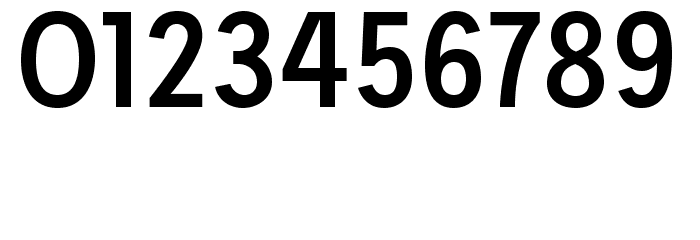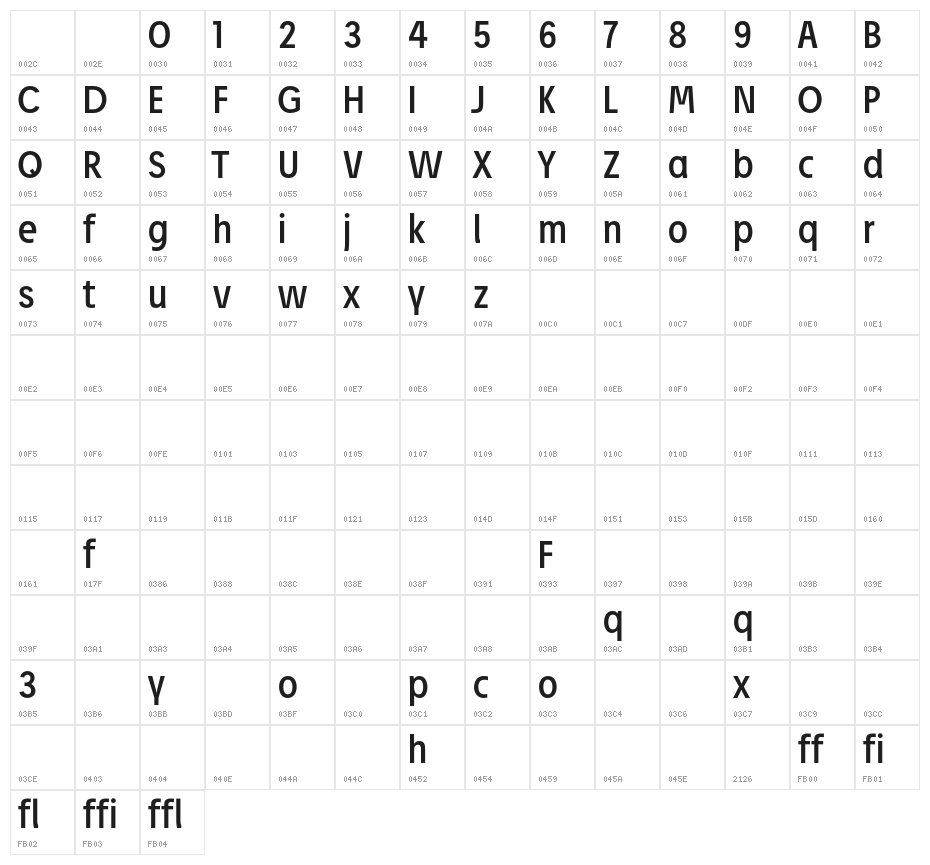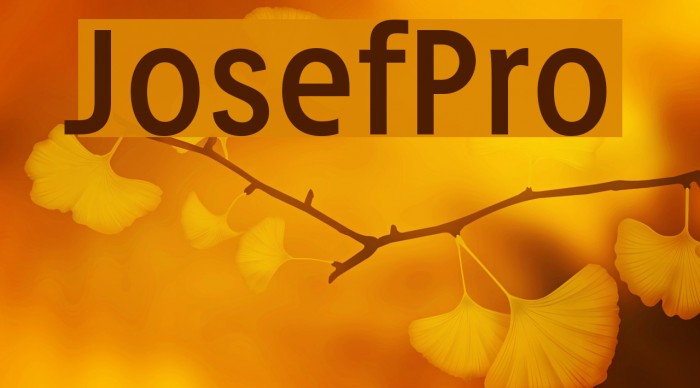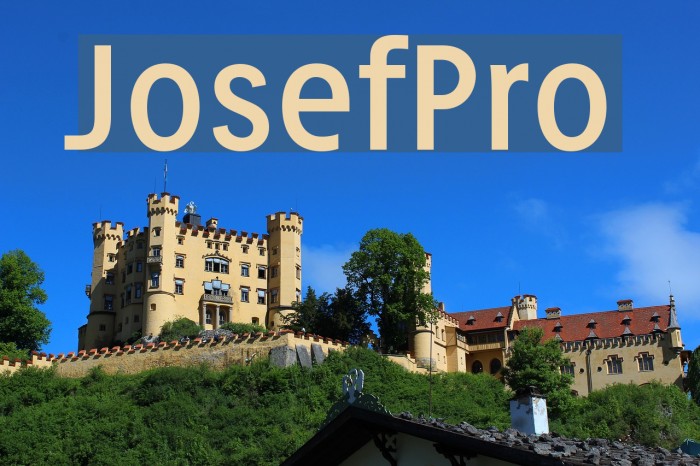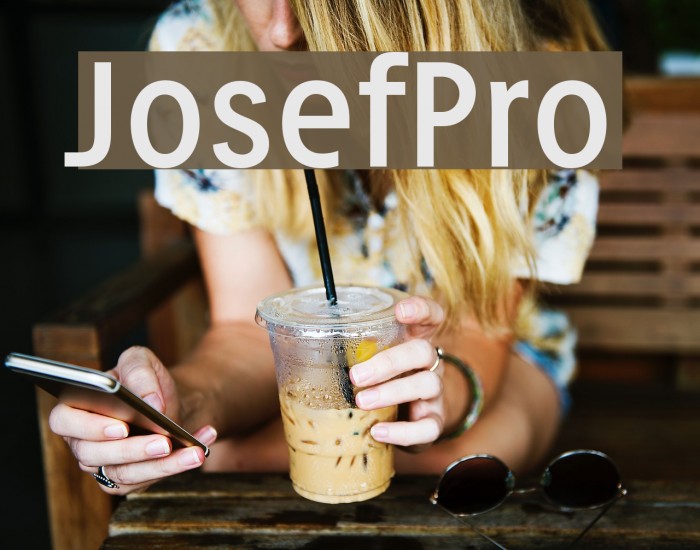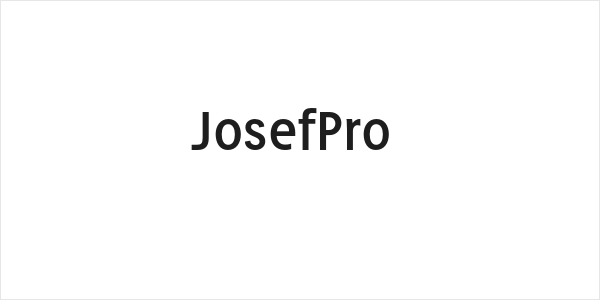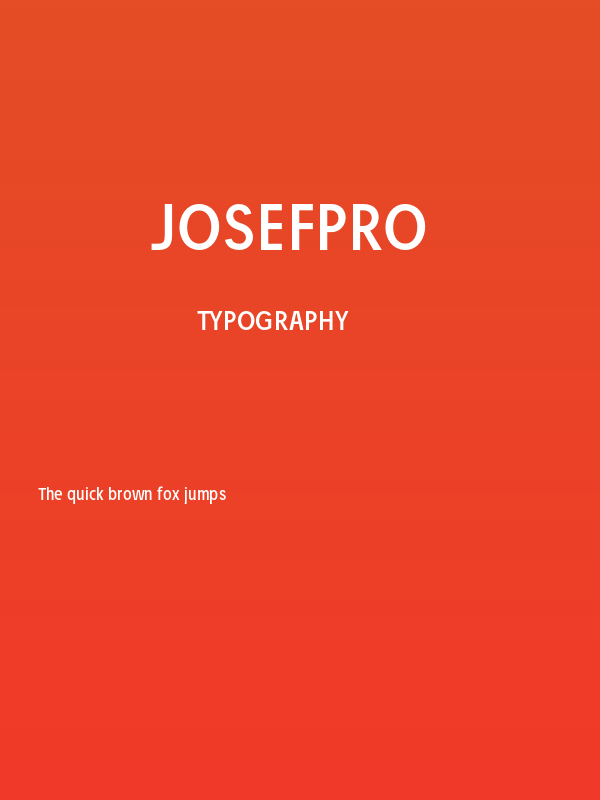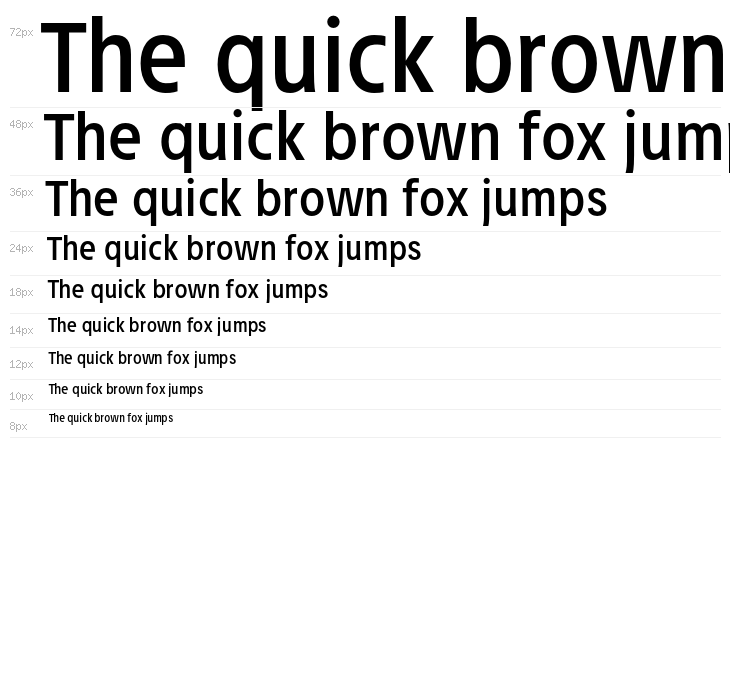
JosefPro Font
JosefPro Description
This typeface is a modern sans-serif font characterized by its clean and straightforward design. The letters are uniform in width, providing a balanced and harmonious appearance. The uppercase and lowercase characters maintain a consistent style, with smooth curves and sharp edges that enhance readability. The numerals are clear and distinct, making them ideal for various applications. The special characters are well-integrated, maintaining the overall aesthetic of the font. Its simplicity and clarity make it versatile for both digital and print media.